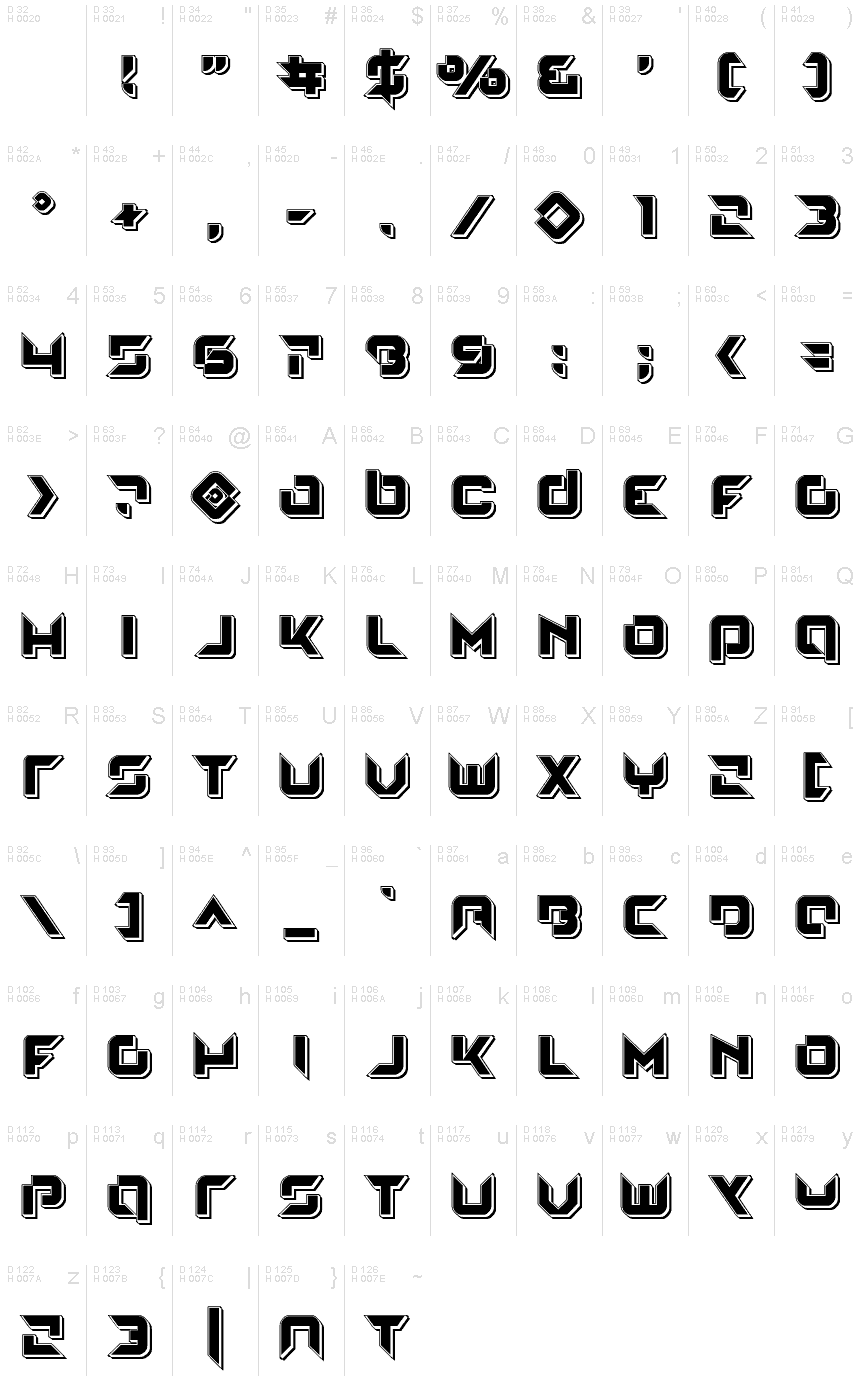
Nodulus Punch
Nodulus Punch font by Iconian Fonts is a display typeface with a futuristic flair. Its bold, expanded structure features chunky geometric elements and outlined details which give it a retro-futuristic feel. Nodulus Punch has captivating presence whenever applied in web, digital, or print projects.
This free font is perfect for titles and headers in books, magazines, websites, posters, event invitations or blog posts. It can also be used for text overlays on social media banners and stories or inspirational photographs and quotes because of its sleek yet bold futuristic appearance.